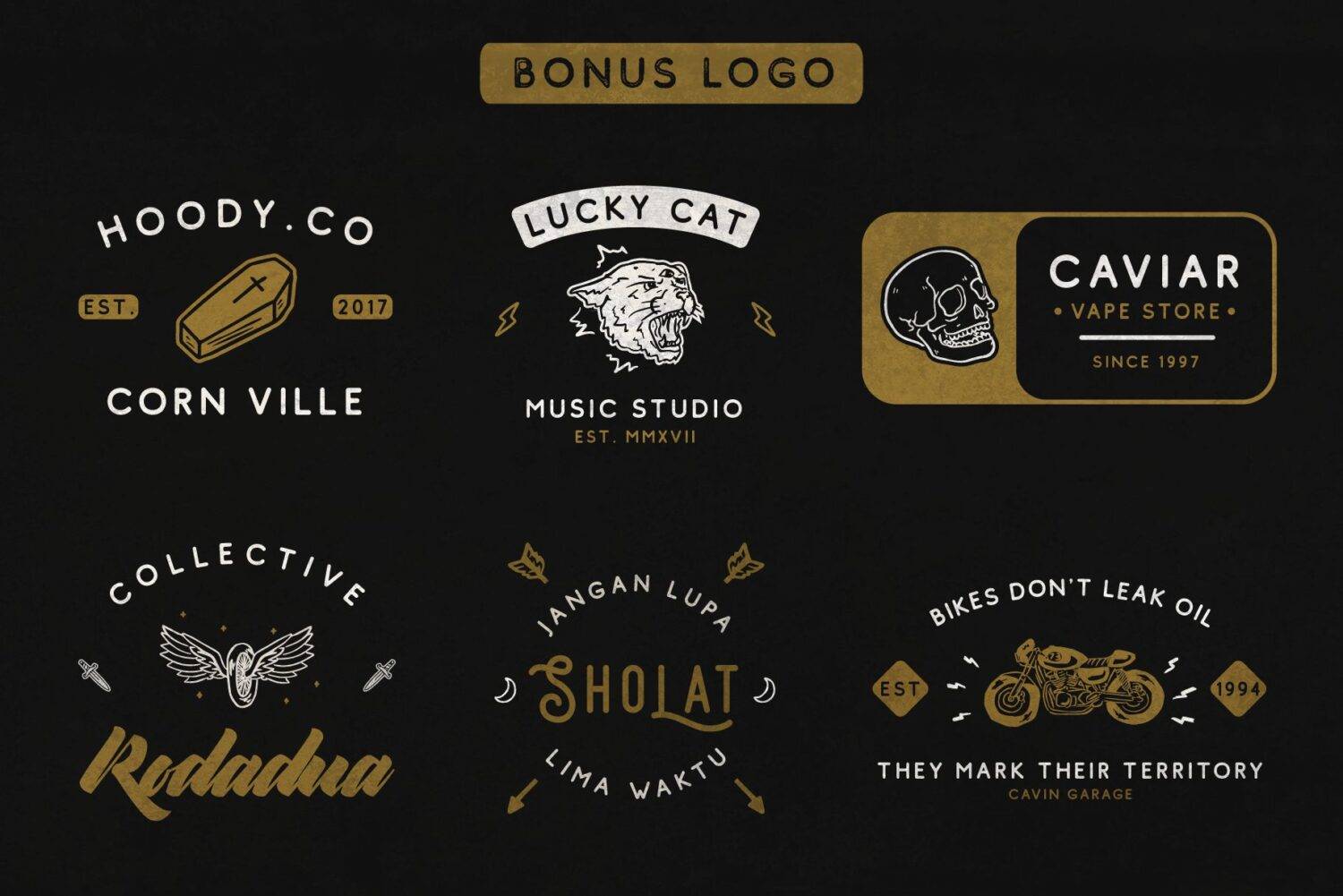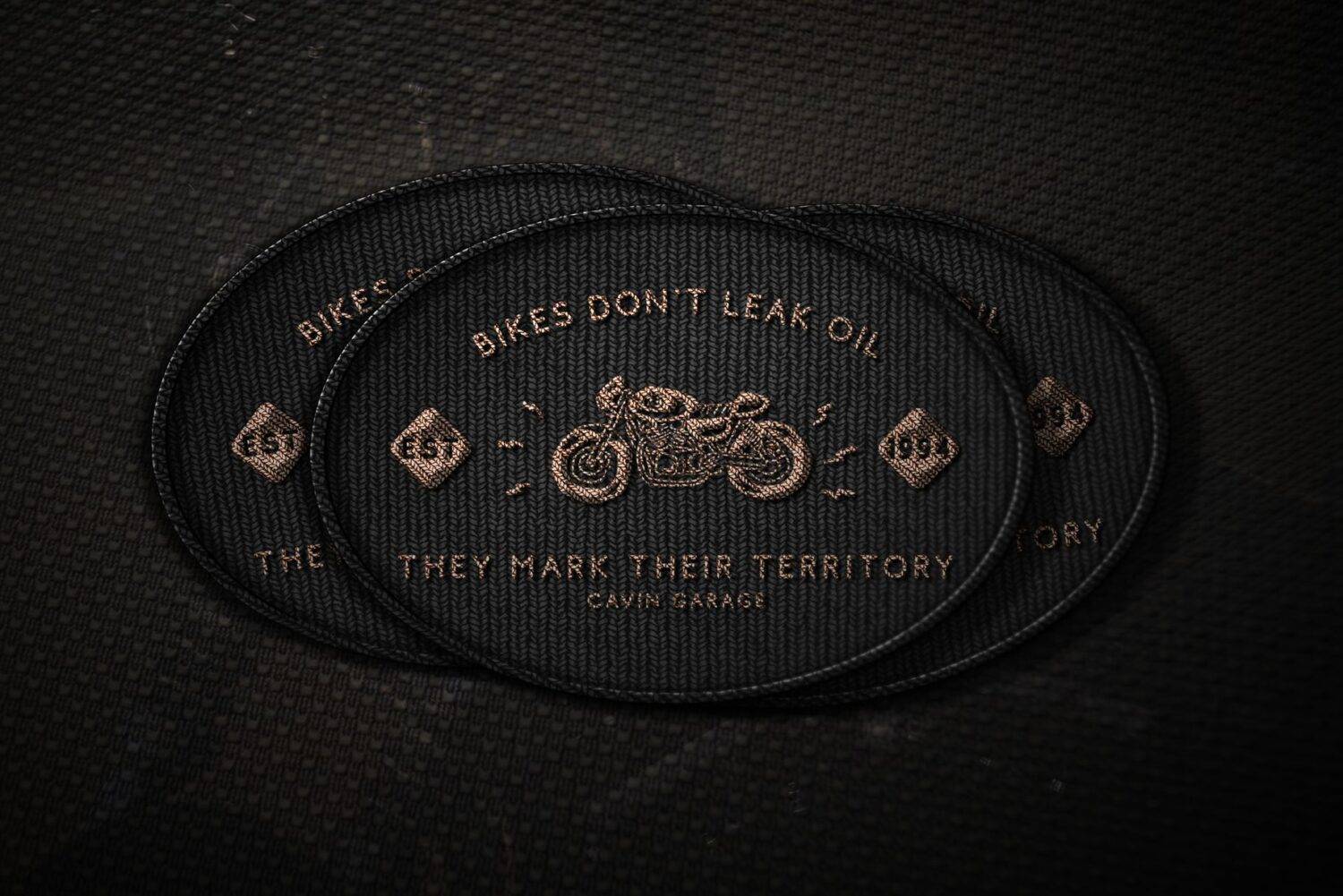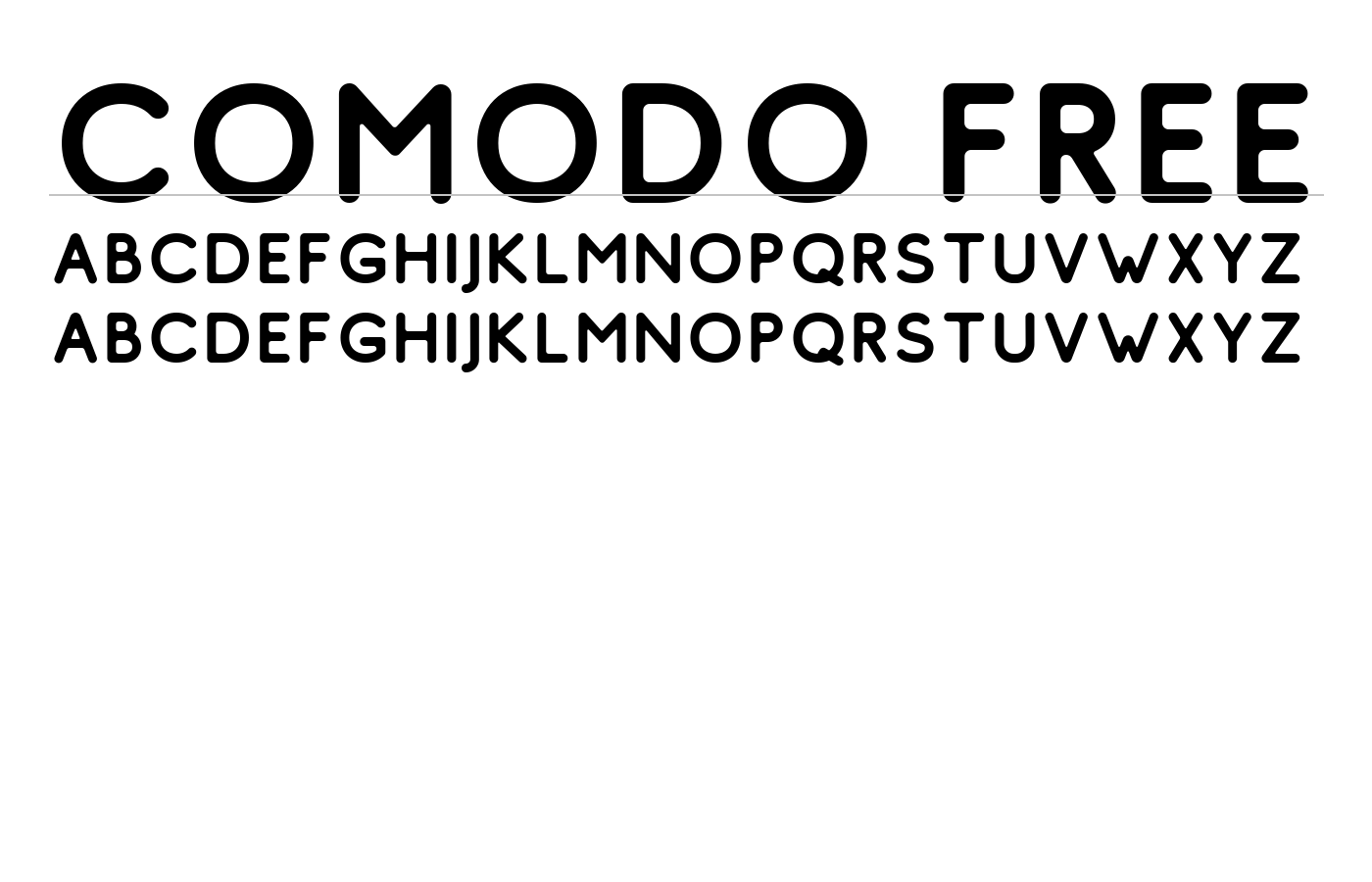
Comodo is a rounded sans serif font with a friendly and approachable character, featuring consistent medium weight strokes and a clean, geometric style. Its even spacing and clear letterforms make it versatile for modern branding, headlines, and user interfaces where readability and warmth are important. This font works well for playful yet professional designs, packaging, and websites aiming for a welcoming and contemporary look.
Comodo Font
About Comodo Font
| Font family | Comodo Font |